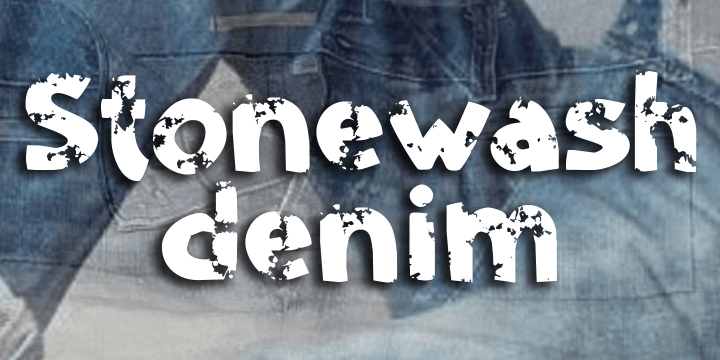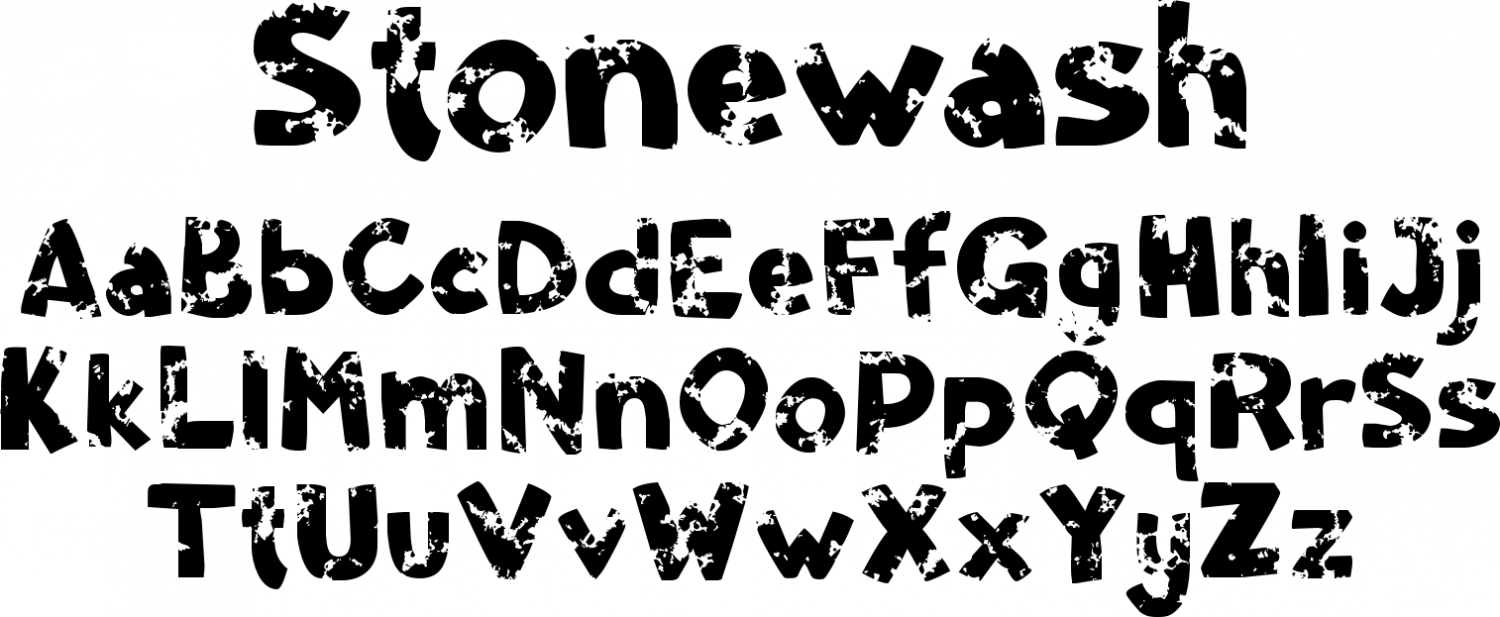
Stonewash
Font Family by Scholtz Fonts
StoneWash is a funky, grunge font, with a monumental marble finish. The font combines an ?old as the hills grunge? look with IN YOUR FACE, modern lines. It has a look of very old, washed out denim, about to disintegrate.
StoneWash has all of the grunge characteristics:
-- it's dirty and corroded
-- it's coarse & broken
-- it's rough & pitted
It also has the characteristics of an African style font:
-- it's ethnic
-- it's irregular
-- it's primitive
-- it's rustic
-- it's vibrant